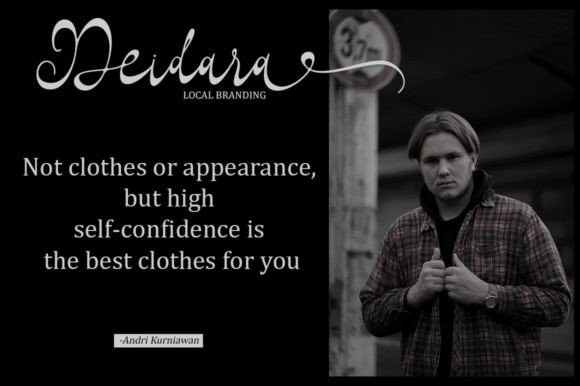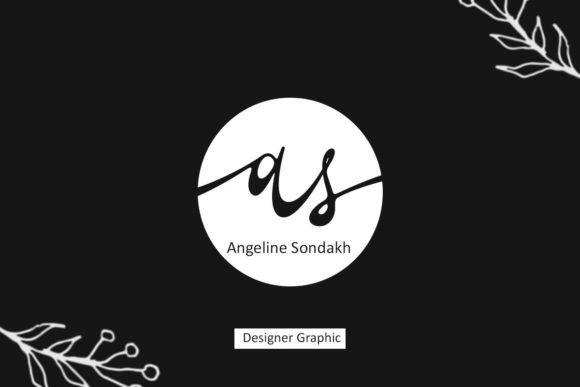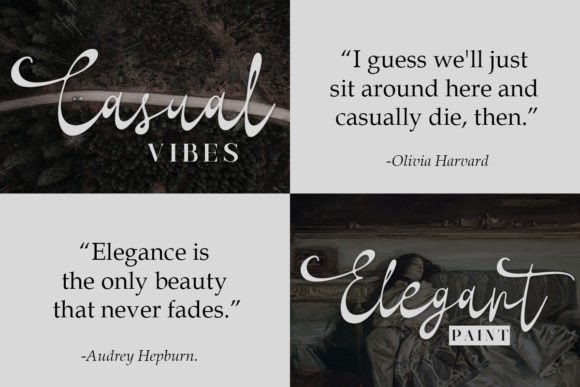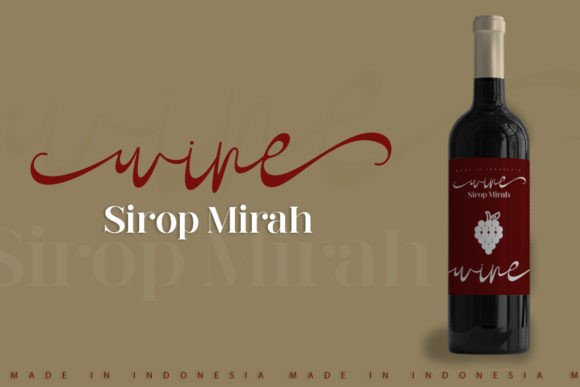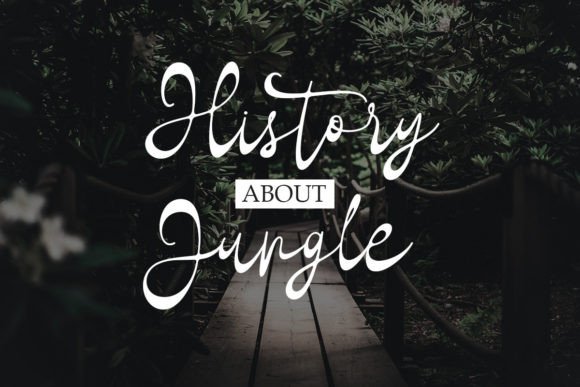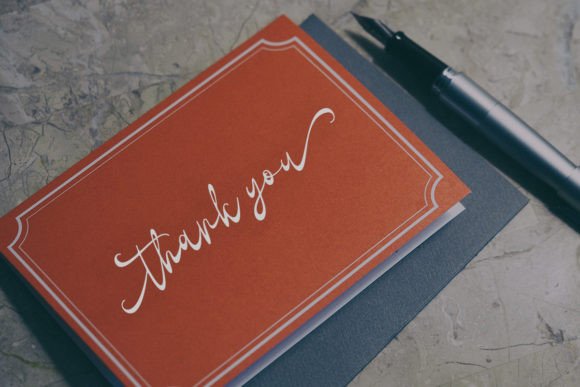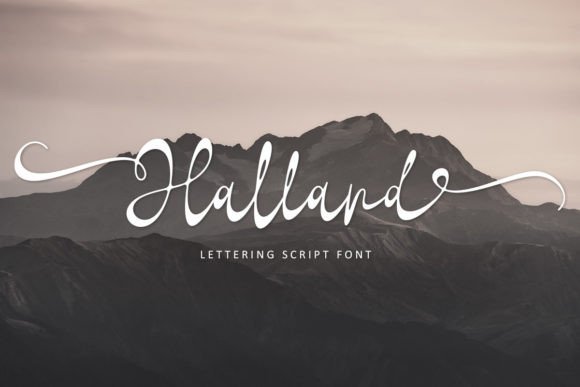
Introducing Halland Font: Elevate Your Designs with Luxury and Elegance
Are you a designer or crafter looking for a font that can add a touch of luxury and sophistication to your projects? Look no further than Halland Font, a beautiful and light handwritten font that is sure to make your designs stand out. With its unique feel and stunning impact, Halland Font is the perfect choice for anyone looking to elevate their designs and add a touch of elegance.
What Makes Halland Font So Special?
Halland Font is a one-of-a-kind handwritten font that boasts a distinctive and luxurious feel. Its light and airy texture gives it a sense of elegance and refinement, making it perfect for designs that require a touch of sophistication. Whether you’re working on a branding project, a wedding invitation, or a packaging design, Halland Font is sure to add a level of luxury and glamour that will set your work apart from the rest.
Key Features of Halland Font
- Unique and Handwritten: Halland Font is a carefully crafted handwritten font that boasts a unique and distinctive feel.
- Light and Airy Texture: The font’s light texture gives it a sense of elegance and refinement, making it perfect for designs that require a touch of sophistication.
- Luxurious and Sophisticated: Halland Font is designed to add a touch of luxury and glamour to any design project, making it perfect for high-end branding, wedding invitations, and packaging designs.
- Easy to Read and Versatile: Despite its elegant feel, Halland Font is easy to read and versatile, making it perfect for a wide range of design projects.
How to Use Halland Font in Your Designs
Halland Font is incredibly easy to use and can be incorporated into a wide range of design projects. Here are a few ideas to get you started:
- Branding and Logo Design: Use Halland Font to create a luxurious and sophisticated brand identity that will set your business apart from the rest.
- Wedding Invitations and Stationery: Add a touch of elegance and refinement to your wedding invitations and stationery with Halland Font.
- Packaging Design: Use Halland Font to create luxurious and eye-catching packaging designs that will make your products stand out on store shelves.
- Digital and Print Media: Halland Font is perfect for use in digital and print media, including magazines, brochures, and flyers.
Why Choose Halland Font?
- Unique and Exclusive: Halland Font is a one-of-a-kind font that will add a touch of exclusivity and sophistication to your designs.
- High-Quality and Professional: Halland Font is a high-quality font that is designed to meet the needs of professional designers and crafters.
- Easy to Use and Versatile: Halland Font is incredibly easy to use and can be incorporated into a wide range of design projects.
In conclusion, Halland Font is a beautiful and light handwritten font that is sure to add a touch of luxury and sophistication to any design project. With its unique feel and stunning impact, Halland Font is the perfect choice for designers and crafters looking to elevate their designs and add a level of elegance and refinement. Whether you’re working on a branding project, a wedding invitation, or a packaging design, Halland Font is the perfect choice.